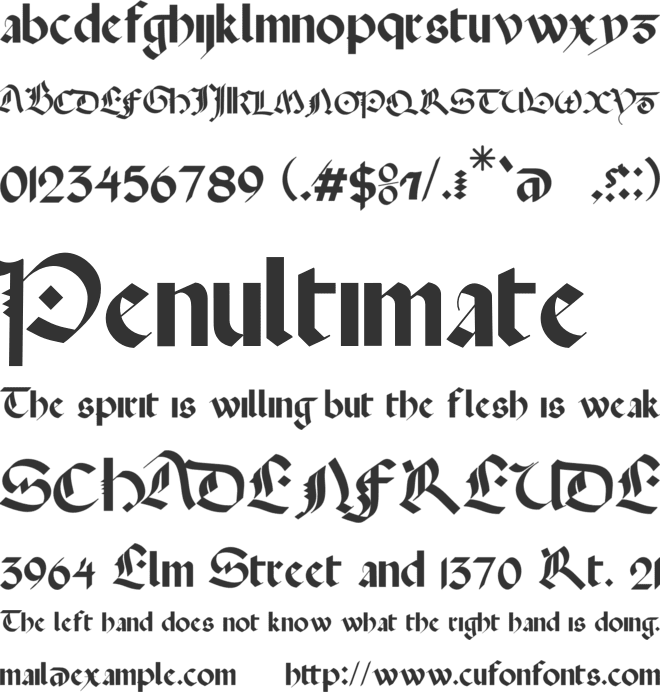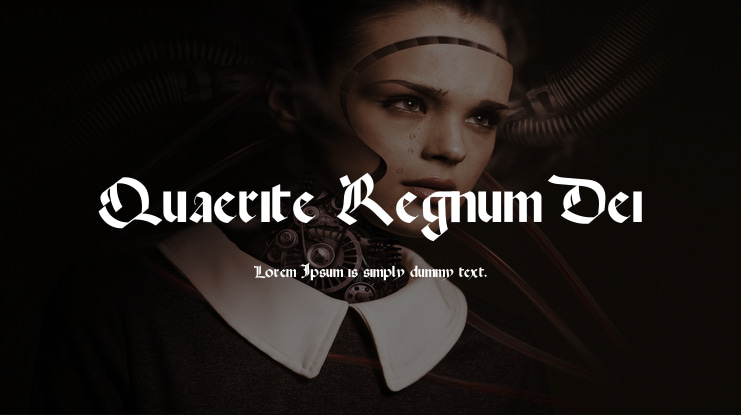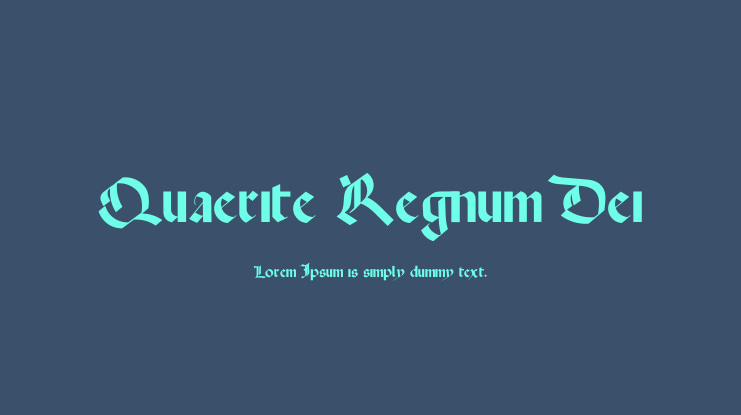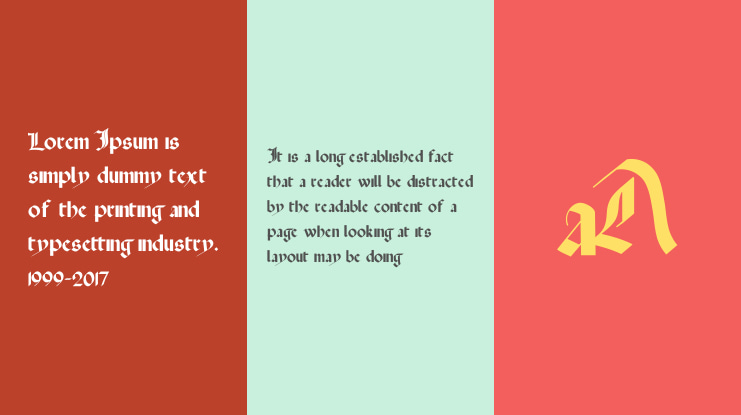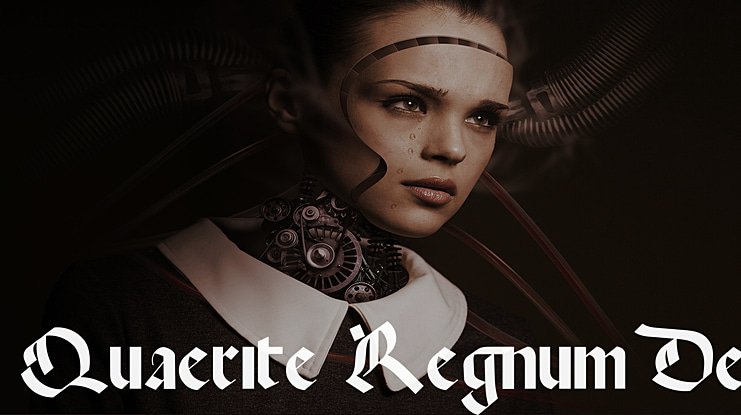
Quaerite Regnum Dei Font
Quaerite Regnum Dei, Latin for «Seek ye the Kingdom of God», is a libre open source font. Quaerite Regnum Dei is based on a beautiful Spanish rotunda hand found in the Misal rico de Cisneros. In the early 16th century, Francisco Jiménez de Cisneros, who was a cardinal in Spain, commissioned local monks/scribes to create a missal to be used in his Toledo cathedral.
The result is held by the Spanish National Library, who graciously created high resolution scans of it available to the whole world. I used their scans to make this font.
As this font is meant to look like handwriting, I decided that it was improper to make just one of each letter. So, the font contains two of each lowercase letter; some, such as ‹s›, have 5 alternates.